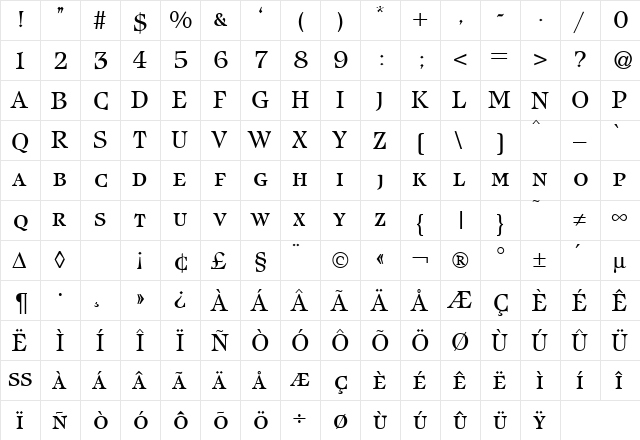
IcebergSmc DB Regular
Design Context for IcebergSmc DB Typeface
IcebergSmc DB offers clean, dependable letterforms without strong stylistic allegiance, making it a practical choice for designers who need flexibility.